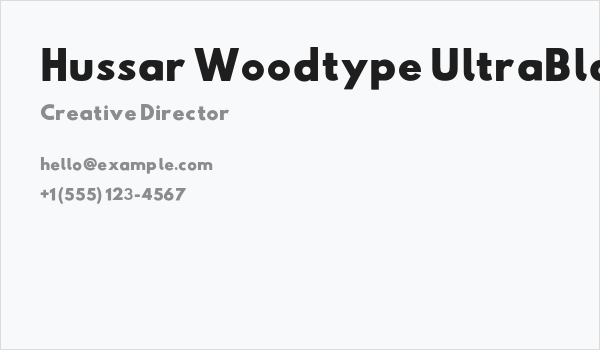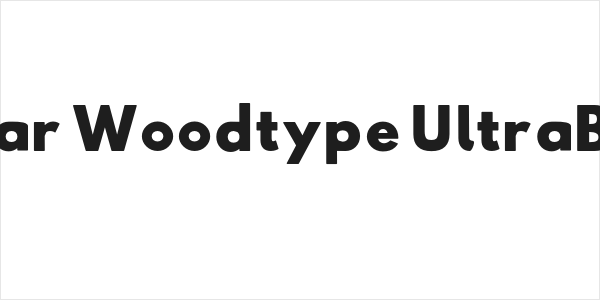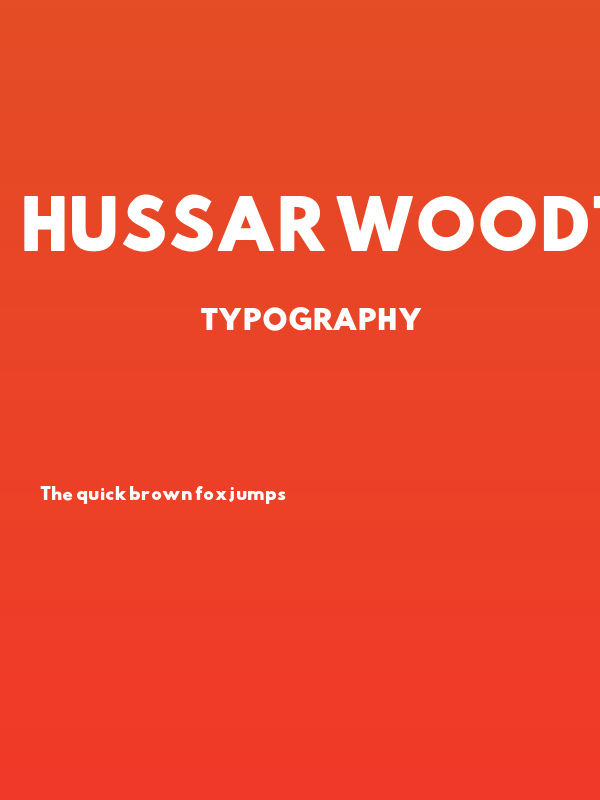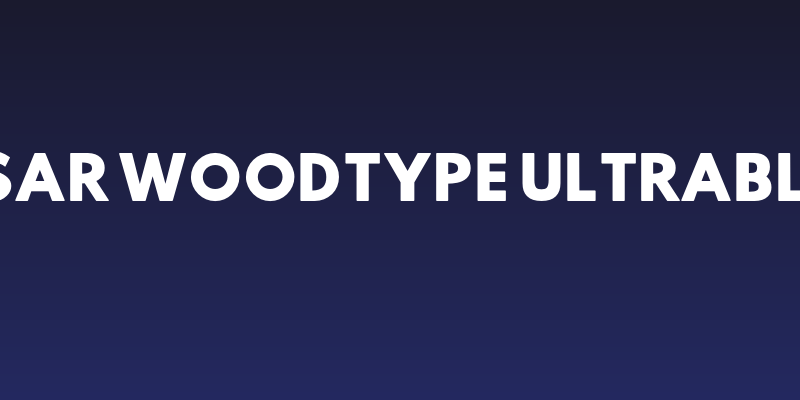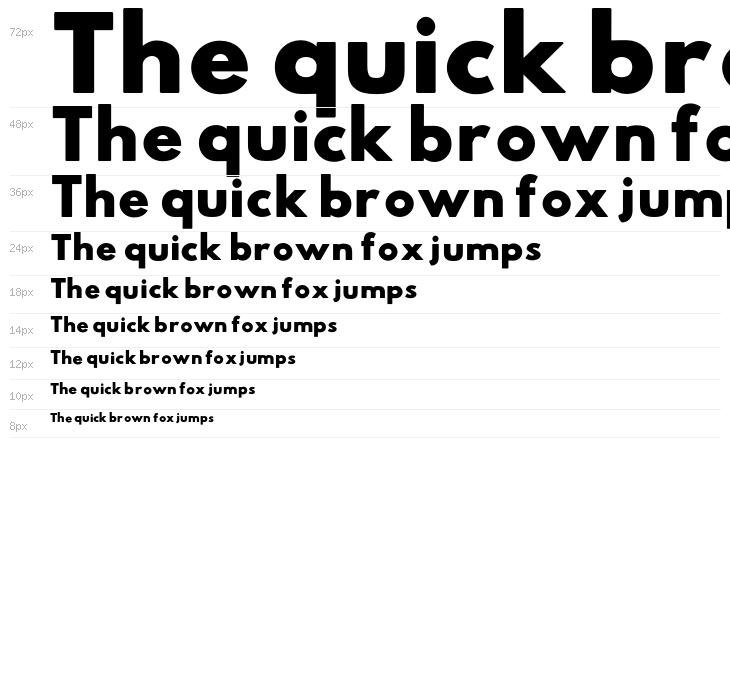
Hussar Woodtype UltraBlack Font
Hussar Woodtype UltraBlack Description
This typeface is characterized by its bold and ultra-black appearance, offering a strong and impactful presence. The letters are thick and robust, with a uniform stroke width that gives it a solid and stable look. The design is clean and straightforward, with no additional flourishes or embellishments, making it ideal for creating a powerful visual statement. The uppercase and lowercase letters maintain a consistent style, ensuring readability and cohesion. The numerals and special characters are equally bold, complementing the overall aesthetic of the typeface. This font is perfect for projects that require a strong and assertive typeface.
| Proposed Projects | Ideal for headlines, posters, branding, and any design requiring a bold statement. |